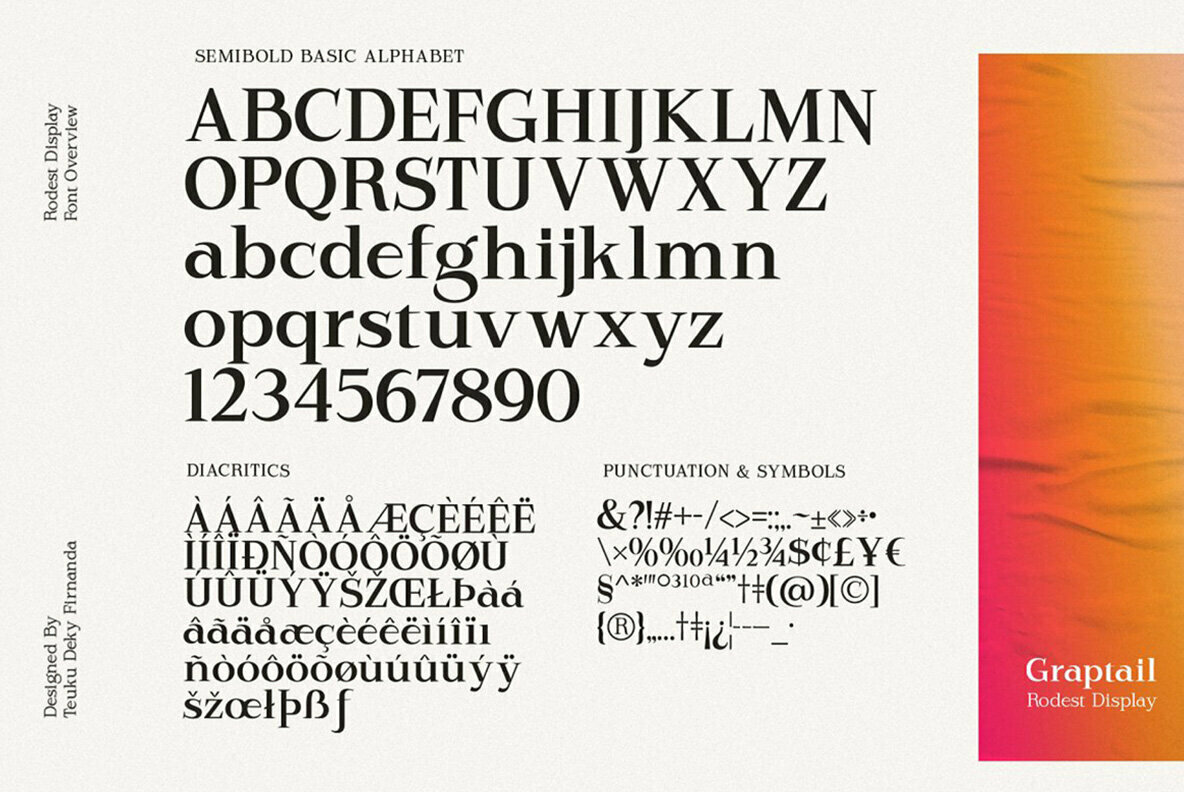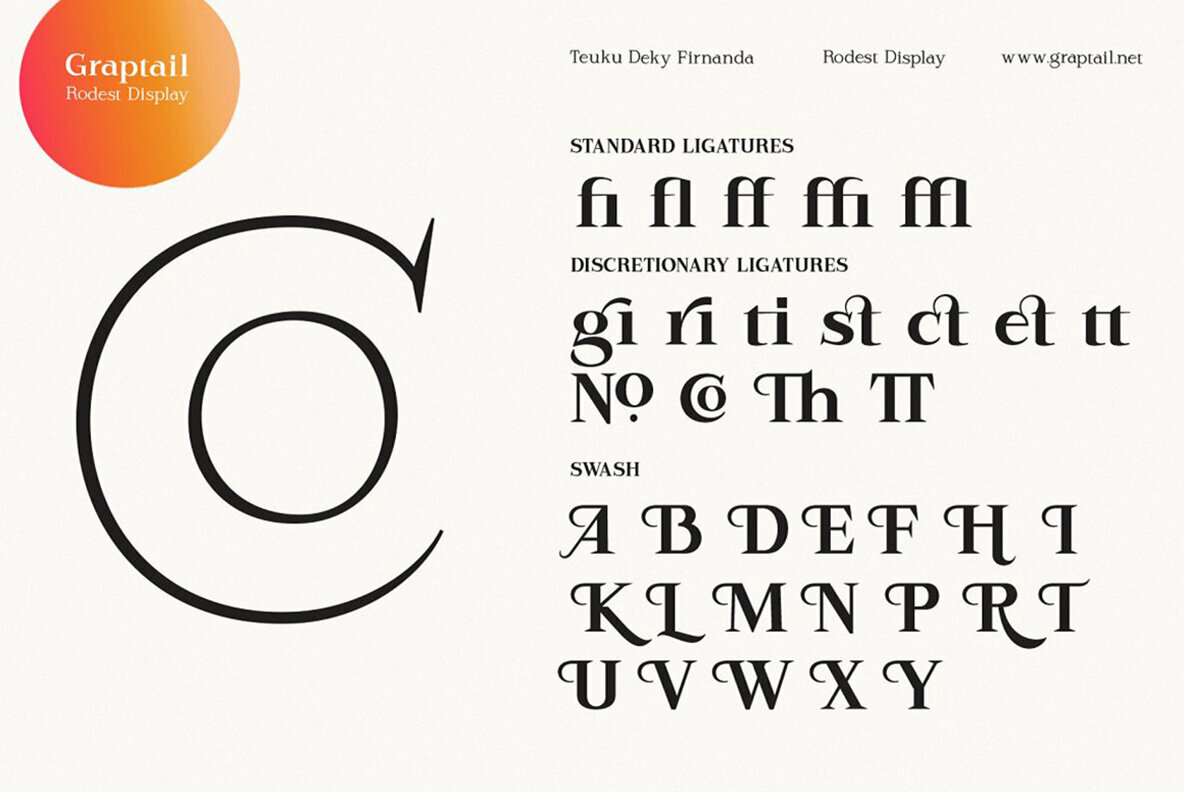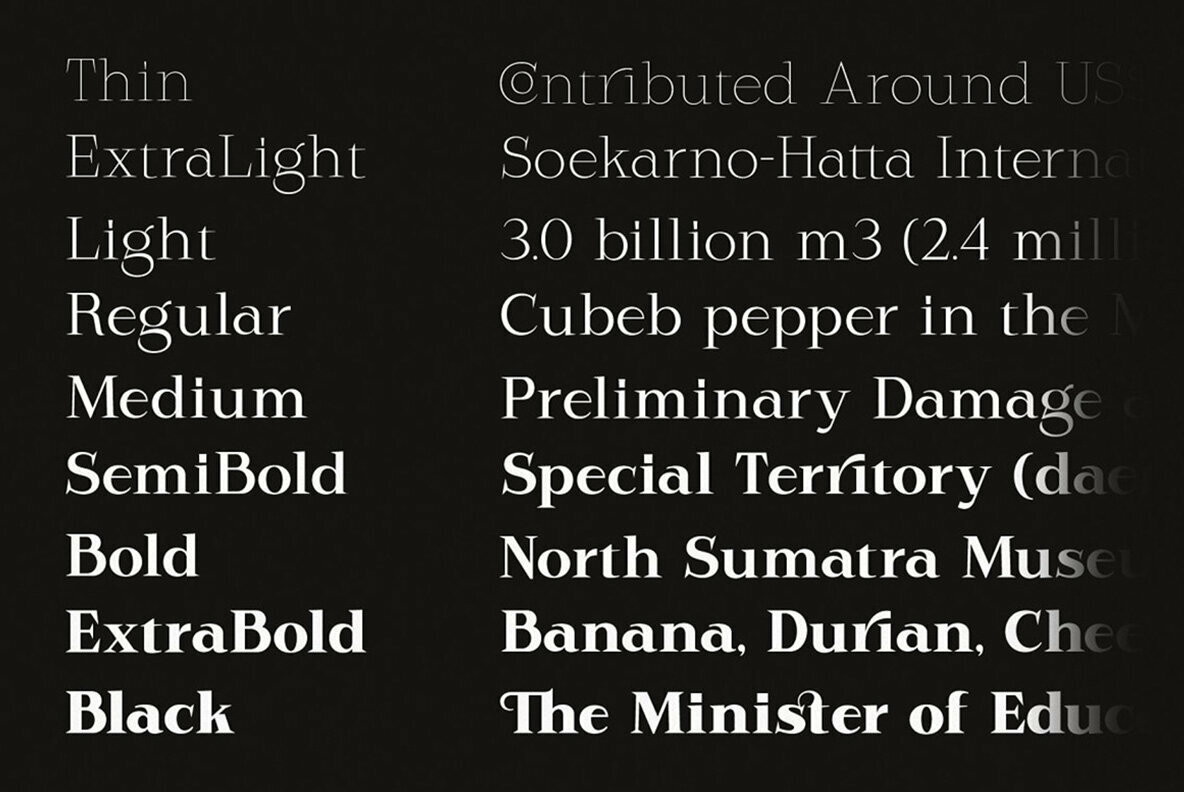
Rodest Font
Rodest is a very soft serif typeface that adds a touch of curvature to certain letters to reflect the feminine value of the shape. The contrast between thick and thin strokes gives Rodest a harmonious and stylish look. It comes in 9 variables plus an alternative version making it perfect for editorial designs, branding, magazines, logos, headers, and more.
Opentype Features:
- Discretionary Ligature
- Standard Ligature
- Fractions
- Stylistic Alternates
- Stylistic Set